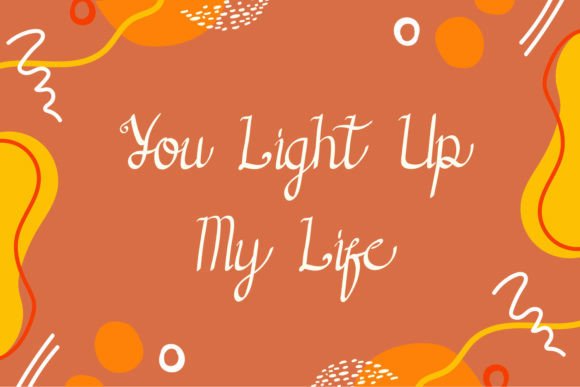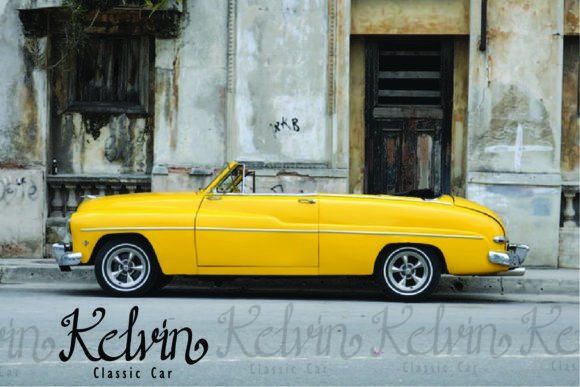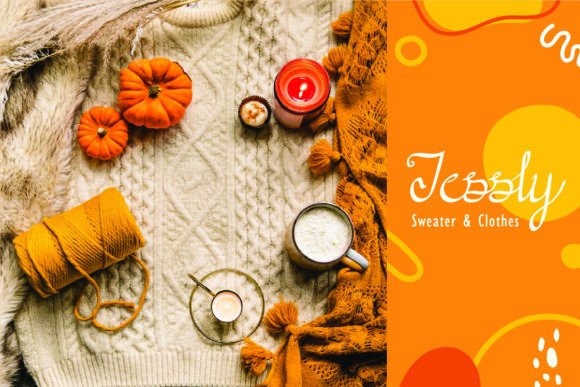
Introduction to Boyaga Font
Boyaga is a fun and quirky handwritten font.
Key Features of Boyaga Font
Why Choose Boyaga Font?
Boyaga Font offers exceptional quality and versatility, making it a valuable addition to your design toolkit. Whether you’re creating for personal projects or commercial use, Boyaga Font delivers professional results.